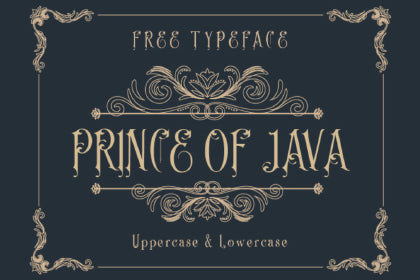
Free Prince of Java Typeface
Featuring the unforgettable free prince of java typeface. This free typeface file was found from the amazing source called Free Design Resources. This is absolutely fancy font so you can easily make world-class designs.